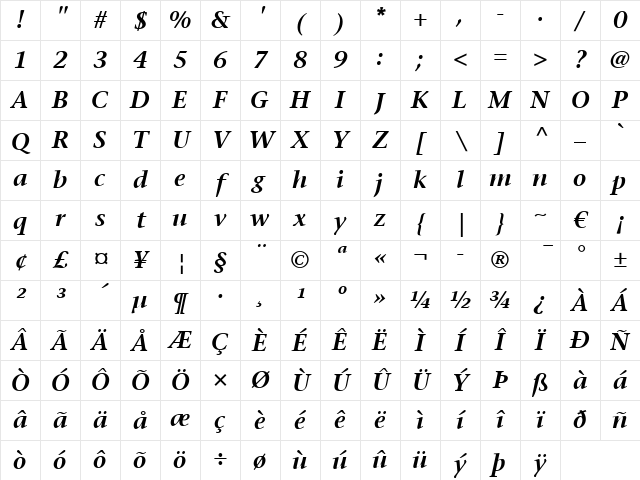
Complete StoneSerif LT Bold Italic glyph index. Displaying only characters natively supported by StoneSerif LT Bold Italic font.
StoneSerif LT carries the refined structure of traditional serif typography, with bracketed terminals and considered proportions that communicate credibility and craft. The slanted form adds forward momentum and visual energy. Its bold stroke weight gives it real presence on the page.